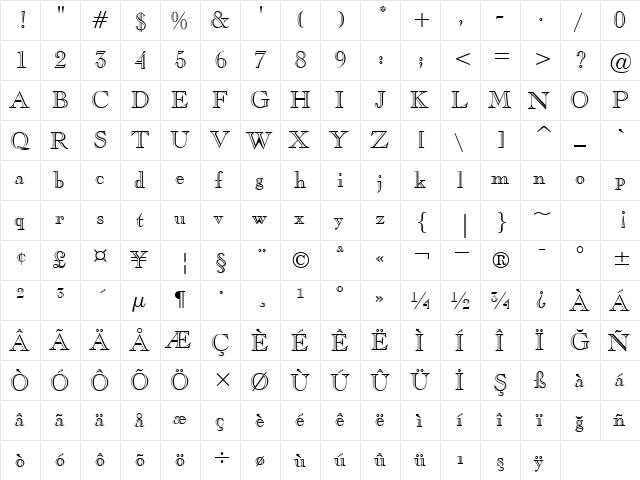
00699 Regular
Design Context for 00699 Typeface
00699 offers clean, dependable letterforms without strong stylistic allegiance, making it a practical choice for designers who need flexibility.